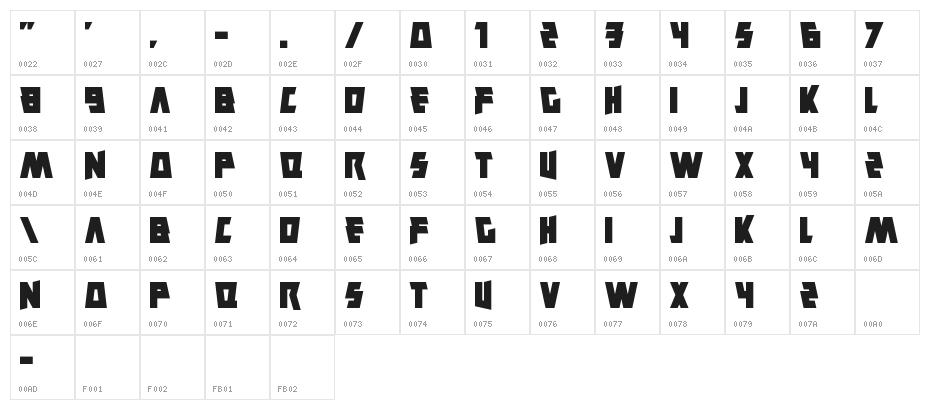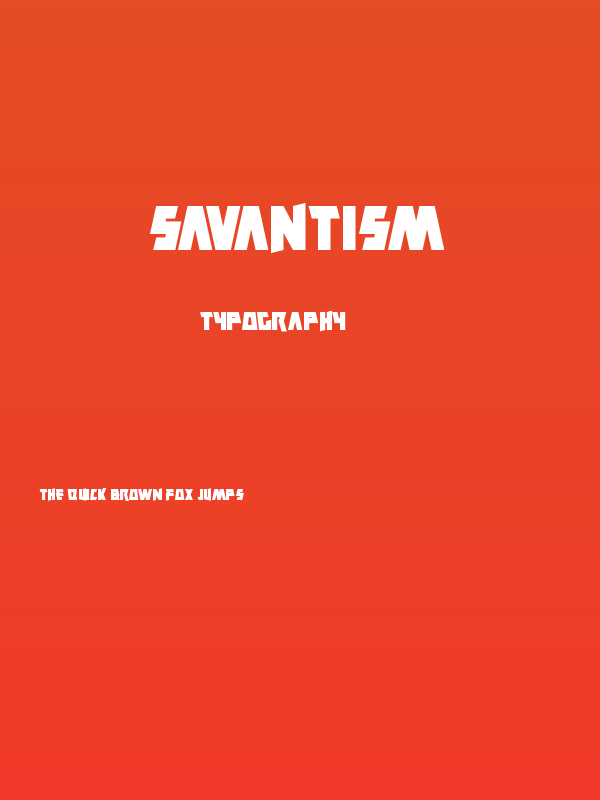
Savantism Font
Savantism Description
This font features a bold and geometric design with sharp, angular edges and a distinctively modern aesthetic. Each character is crafted with a unique, blocky style that gives it a strong, impactful presence. The uppercase and lowercase letters maintain a consistent height, contributing to a uniform appearance. Numbers and special characters follow the same angular design, ensuring cohesion across all elements. The font's boldness and geometric shapes make it stand out, ideal for attention-grabbing applications. Its style is reminiscent of futuristic or digital themes, making it suitable for modern and tech-oriented projects.